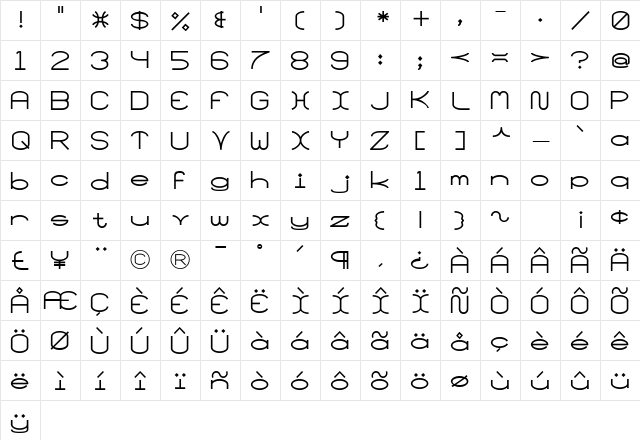
SantaMonicaMF Regular
Design Context for SantaMonicaMF Typeface
SantaMonicaMF offers clean, dependable letterforms without strong stylistic allegiance, making it a practical choice for designers who need flexibility.